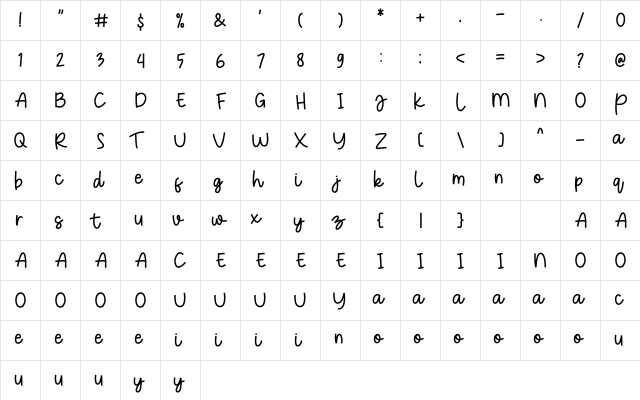
New Rocket Script
Design Context for New Rocket Typeface
New Rocket brings a calligraphic fluidity to the page — its connecting strokes and expressive curves give it an unmistakably human quality.
Font Pairing: Combine New Rocket with a simple geometric sans for maximum contrast — the tension between flowing curves and clean structure is a classic typographic pairing.
Pro Tip: Use New Rocket for short runs of text — names, titles, or taglines. Extended body copy in script faces tires the eye quickly.